Get started, revise and create
A one day workshop - 'Get started, revise and create'  - a workshop for beginners or those wishing to revise and have fun with simple creative techniques.
An introduction to calligraphy which will begin with the basics - double pencils and foundational roundhand to learn letter and alphabet structure, then when energy starts to flag, we will use simple letter forms to explore colourful and creative techniques. Enjoying the process is the best way to learn and keep practising, which hand lettering requires.
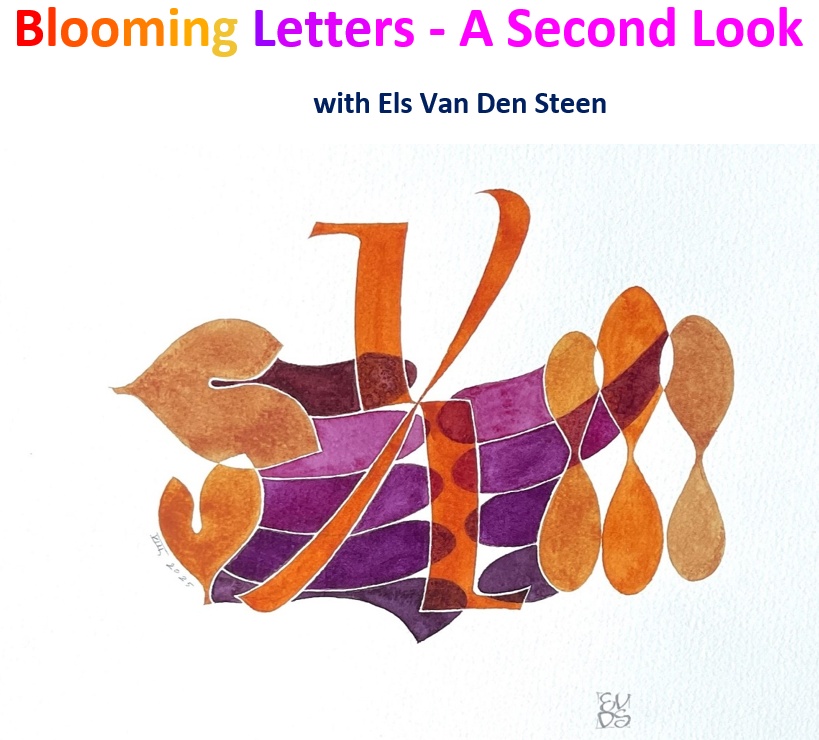Blooming Letters - a second look
In this workshop we will create decorative letter designs that stand on their own. It is not necessary to have attended the first Blooming Letters workshop before attending this second one. Everyone is welcome as Els is revisiting the same topic but looking at it from a different angle. In the first workshop colourful initial letters were created for a greetings card, and in this new workshop we are thinking outside the box and creating letter designs that stand on their own.
Runes Revisited
In this workshop you will learn something about the origins of Scandinavian runes and about the Anglo-Saxon Futhark alphabet which we will adapt to form a contemporary runic-style alphabet (in English). You can use this to complement your calligraphic pieces or on its own.
We will generally be working with monoline nibs, such as Brause 'Ornament', etc., although you may wish to experiment with other monoline tools or nibs. An exciting addition for the winter months!
Triangular Celtic knots and Split band knots
If you are familiar with the other Celtic classes that Joy has done - Basic Square knots, Circular knots and Knots in odd shapes, then you will need to add the Triangular Knot to your repertoire!
Starting with the simple Trinity knot, you can make it into square or circular knots by linking them together - and just to make things a bit more complicated, you will learn how to split the bands and double up on the fun!
'Mouse Roman' Online Workshop with Josie Brown
It’s fun, it’s lively and it’s contemporary! This workshop is an introduction to a script which is easy to learn for beginners and a light-hearted contrast to other hands for those with some experience. It can either be carried out simply in monoline form or penmanship skills can be developed using press and release techniques. This script is particularly useful for informal and spontaneous work like greetings cards, journals or little books and anyone can play with the letterforms, enjoying their happy-go-lucky stance on the page.
Blooming Letters with Els Van Den Steen
blooming letters
In this workshop we create colourful letter designs that are perfect on their own or can be used as a decorative letter as part of a larger calligraphic piece. We design our own letters, exploring mono-line and broad-pen letter variations. Next, we provide our letters with a colourful background using watercolours. Our colour palette is inspired by wildflowers and flowers from our own garden.
Gilding Techniques - Workshop with Jo Mabbutt
Who would have thought you could cover so many types of gilding in one day?  I wasn't quite sure what to expect when I signed up for Jo Mabbutt's 'Experimental Gilding' workshop in March, especially when we knew her expertise was gilding on fabric and lace in particular, but she focused on paper for us calligraphers and left us with loads of ideas and options to follow up in our own time. Here was my creation:
Calligraphy Scripts for All - Workshop with Sylvie Gokulsing
In this workshop on 25th January 2025, participants were given the chance to explore a new script or to improve on a more familiar one. Tutor Sylvie Gokulsing demonstrated a variety of scripts throughout the day, including Uncial, Foundational, Italic variations and Gothic/black letter. Under Sylvie’s expert guidance, beginners learned the basics and refreshers delved more deeply into their chosen script. The class was fast-paced and culminated in a collaborative piece which Sylvie will bind for display at SLLA’s exhibition this summer.
Learn how to unravel the intricacies of the Celtic Knot and design your own knotwork pattern. With a few simple rules and a square grid you will discover how to construct the simplest knot and then build on this to make more complicated patterns as the day goes on. Use these patterns with calligraphy, stone carving, lino cuts, stencils, embroidery, knitting etc., or just on their own as a beautiful design.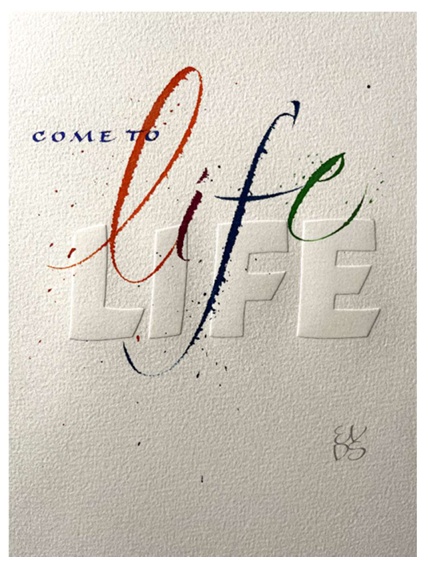